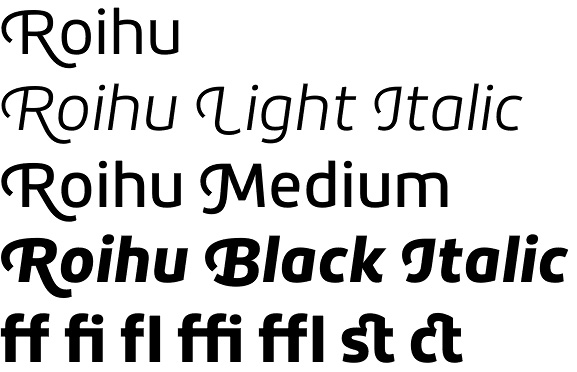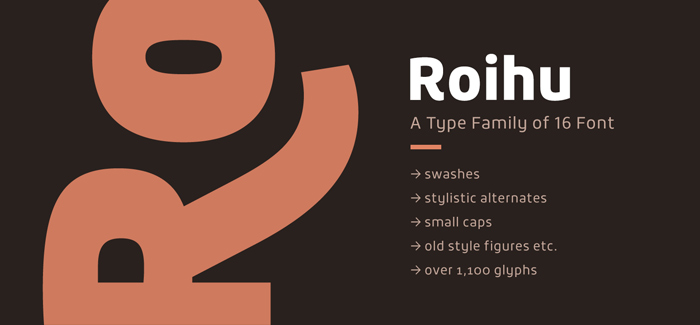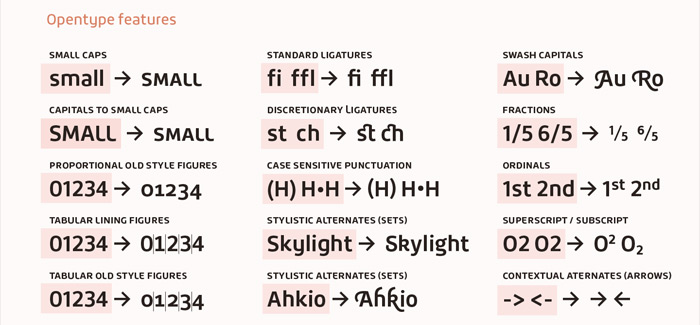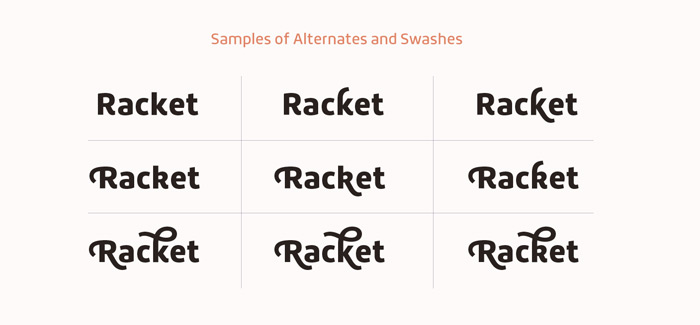
Roihu font
Roihu font family by Mika Melvas (author of another ‘crowded’ font family – Riona Sans font) is a highly decorative Sans Serif family, successfully borrowed some of the scripts’ distinctive features such as ligatures and swashes. Roihu font family consists of 16 fonts – eight roman and eight italic weights. Each weight provides the amazing amount of over 1,100 glyphs. Use the eye-catching stylistic alternates and swashes to design appealing captions, logos, texts, packages, and many others.
Roihu font has a plenty of OpenType features:
– small caps
– stylistic alternates
– swashes
– proportional lining figures
– proportional old style figures
– tabular lining figures
– tabular old style figures
– standard ligatures
– discretionary ligatures
– case sensitive punctuation
– fractions
– ordinals
– superscript
– subscript
– arrows.